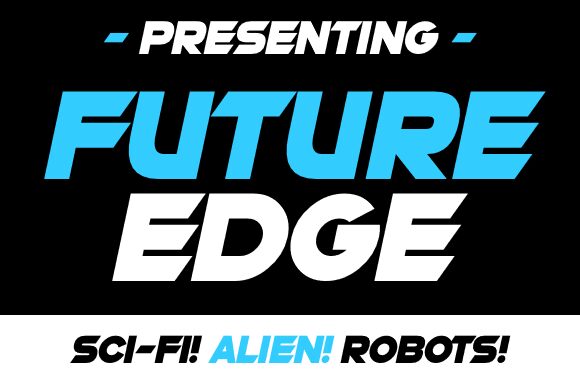
Future Edge
Future Edge font is a futuristic display font designed by Darrell Flood of Hawtpixel. Its modern aesthetic features geometric elements and sharp angles, making it a great fit for a technological feel. The bold characters create strong visual impact, necessary for catching the attention of readers and viewers. Such intricacy also blurs the limits between textual information and image visuals since complex typesetting becomes easy once Future Edge is involved.
This free bold typeface is great in various projects ranging from magazine covers, book covers, invitations, greeting cards, logos, posters packaging designs to social media posts. Make your product presentations unique or simply use this font for specific lettering in your text to achieve professionalism and intrigue.